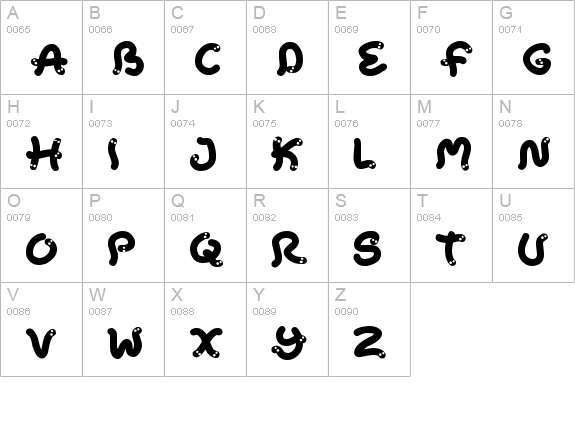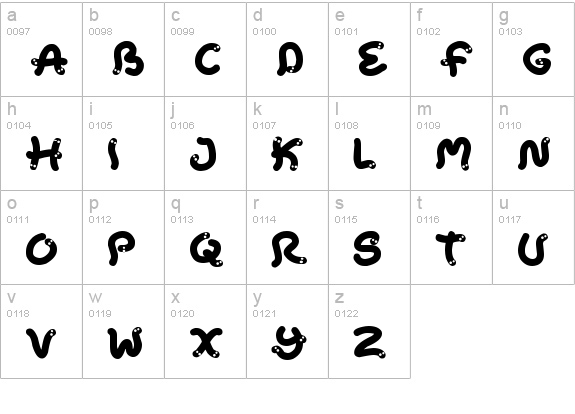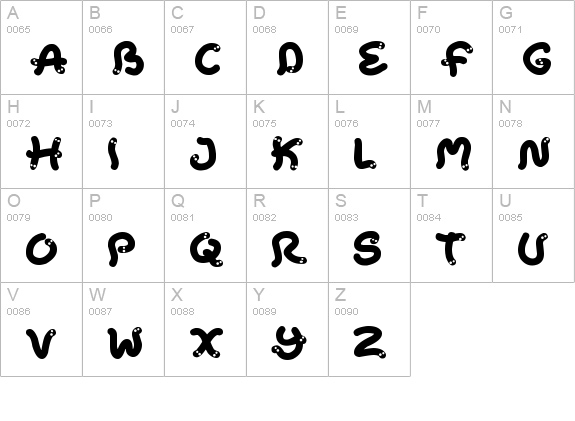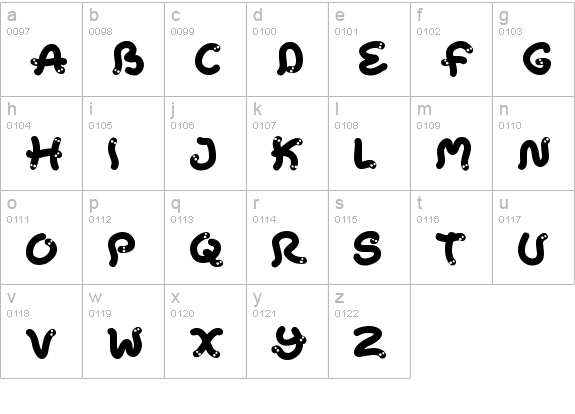
Snake Chan is a free for personal use font in the Fancy > Decorative category, designed by Darrell Flood. It has been downloaded 128 times and is available for Windows, Mac and Linux.
Snake Chan font is a mesmerizing display typeface that exudes a sense of mystery and elegance. With its slithery and sinuous curves, Snake Chan font is perfect for projects that require a touch of exoticism and intrigue. The intricate details and unique design of this font give it a mystical and captivating aura that is sure to draw attention.